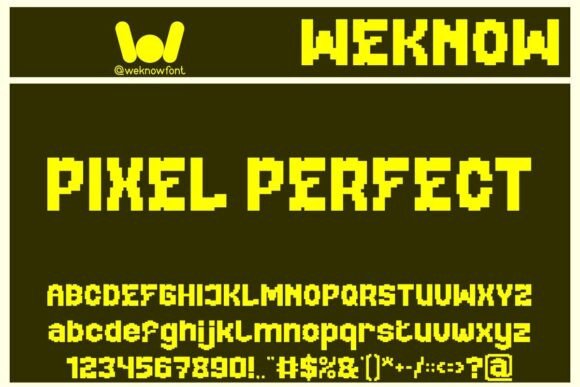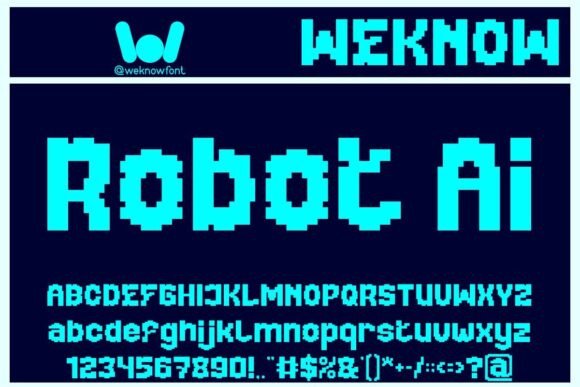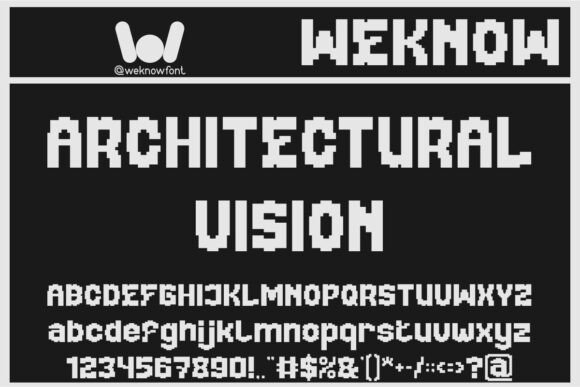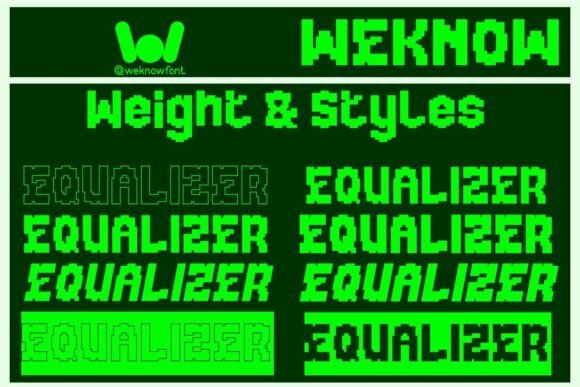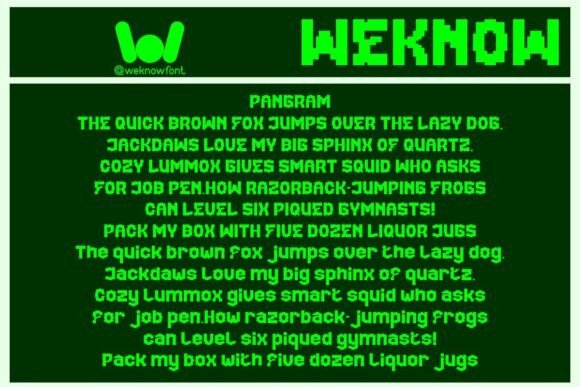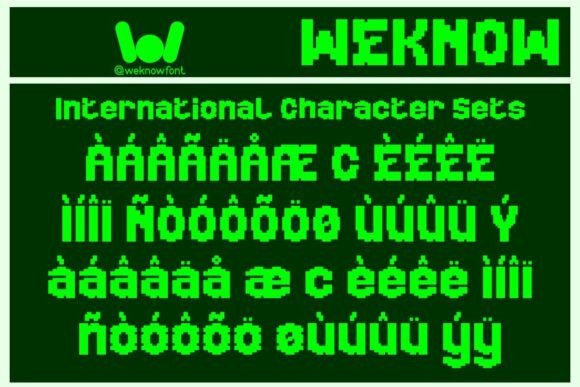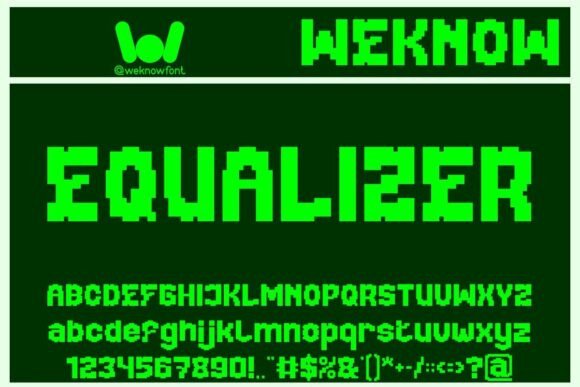
Introducing Equalizer: The Ultimate Techno-Sci-Fi Font for Forward-Thinking Designers
In the world of design, fonts play a crucial role in shaping the visual identity of a brand or project. With the ever-evolving landscape of design trends, it’s essential to stay ahead of the curve with a font that exudes innovation and cutting-edge style. This is where Equalizer comes in – an ultramodern, techno-sci-fi font that is poised to revolutionize the way you approach typography.
Fusing LED Influences with Robotic Block Square Display
Equalizer is not just another font; it’s an experience. By seamlessly fusing LED influences with a robotic block square display, this striking typeface is designed to grab attention and imprint your corporate identity. The result is a font that is both futuristic and mesmerizing, perfect for creating captivating headlines that leave a lasting impression.
Equalizer is an incredibly versatile font that can be used across a wide range of design projects. Whether you’re a fashion label looking to create a bold brand statement, an author seeking to make your book cover stand out, or a musician aiming to create eye-catching posters, Equalizer is the perfect choice. Its distinctive texture and high-tech vibe breathe life into any design project, making it an excellent addition to your typography arsenal.
Perfect for:
- Fashion labels and branding
- Book covers and publishing
- Music posters and album art
- Animated cartoons and video production
- Magazines and editorial design
- Movies and film production
- Games and interactive design
- YouTube content and vlogging
- Instagram posts and social media
- Websites and digital marketing
What Sets Equalizer Apart
So, what makes Equalizer an ultimate font choice for forward-thinking designers? Here are a few key features that set it apart:
- Ultramodern aesthetic: Equalizer boasts a cutting-edge design that is sure to make your project stand out in a crowded design landscape.
- High-tech vibe: The font’s distinctive texture and LED influences evoke a sense of innovation and technological advancement.
- Versatility: Equalizer can be used across a wide range of design projects, from print to digital.
- Attention-grabbing: This font is designed to grab attention and leave a lasting impression on your audience.
Tips for Using Equalizer Effectively
To get the most out of Equalizer, here are a few tips to keep in mind:
- Use it sparingly: Equalizer is a bold font, so use it sparingly to avoid overwhelming your design.
- Experiment with colors: The font’s LED influences make it perfect for use with bright, bold colors.
- Mix and match: Combine Equalizer with other fonts to create a unique typography style.
In conclusion, Equalizer is a game-changing font that is sure to elevate your design project to the next level. Its ultramodern aesthetic, high-tech vibe, and versatility make it the perfect choice for forward-thinking designers. Whether you’re looking to create captivating headlines, shape your brand’s image, or simply add a touch of innovation to your design, Equalizer is the ultimate font choice.